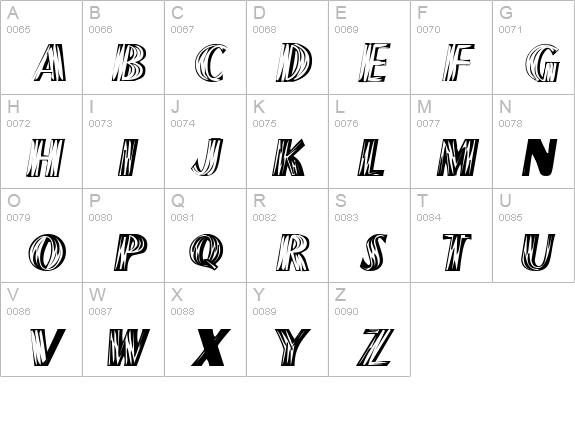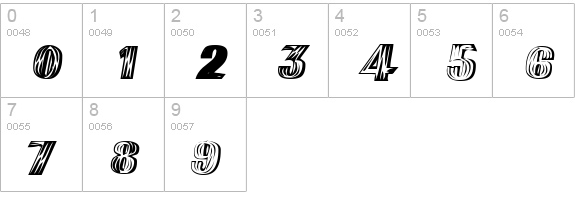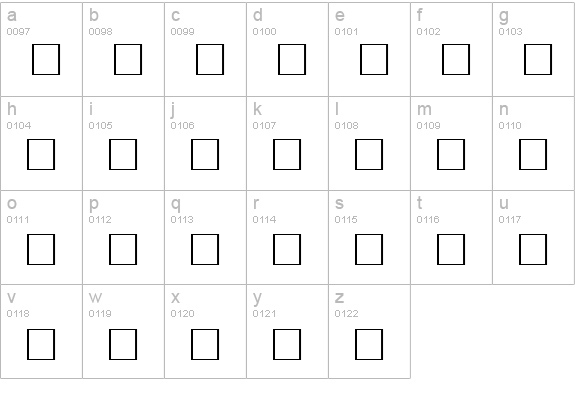
Haven Font Details
Introducing Haven Font, a stunningly versatile typeface that exudes elegance and sophistication. Designed with meticulous attention to detail, Haven Font effortlessly combines clean lines with subtle curves, creating a harmonious balance that is pleasing to the eye. With its timeless appeal, Haven Font is perfect for a wide range of projects. Whether you're designing a logo, crafting a captivating headline, or creating a unique wedding invitation, this font will elevate your designs to new heights. Not only does Haven Font offer unparalleled aesthetics, but it also boasts exceptional readability. Each character is meticulously crafted to ensure legibility, making it a reliable choice for both digital and print media. One of the most remarkable features of Haven Font is that it is available for free! Yes, you read that right. This exceptional font can be downloaded at absolutely no cost from FontsMarket.com. Embrace the opportunity to enhance your creative endeavors with this extraordinary font, without breaking the bank. Haven Font offers a wide range of weights and styles, ensuring that you have the flexibility to experiment and find the perfect fit for your project. From the delicate thin weight to the bold and impactful heavy weight, this font has it all. In addition, Haven Font supports multiple languages, making it a truly global typeface. Whether you're designing for English, Spanish, French, or any other language, rest assured that Haven Font has got you covered. So why wait? Unlock your creative potential and download Haven Font for free at FontsMarket.com. Experience the seamless blend of beauty and functionality, and let this font become your secret weapon for captivating designs.